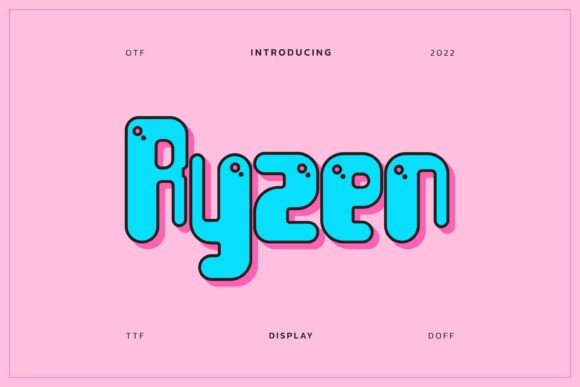
Dive into the world of typography with Ryzen Font, a display font masterpiece crafted by inferno.type3. This font's captivating personality shines through its playful and cheerful style, ready to infuse your designs with an unforgettable charm. With Ryzen Font, creativity takes center stage, propelling your ideas to new heights.
More than just a font, Ryzen Font is an artistic expression that captures the essence of joyful communication. Its playful curves and sharp angles create a visual rhythm that dances across your designs, captivating your audience with its dynamic energy. Whether you're crafting logos, branding materials, social media posts, or eye-catching headlines, Ryzen Font is your secret weapon to leave a lasting impression.
But what truly sets Ryzen Font apart is its versatility. Seamlessly adapt this font to a myriad of design projects, from playful invitations to bold posters. Its adaptability knows no bounds, making it the perfect companion for designers seeking a font that can effortlessly transition from playful to professional. Unleash your imagination and explore the limitless possibilities that await you with Ryzen Font.